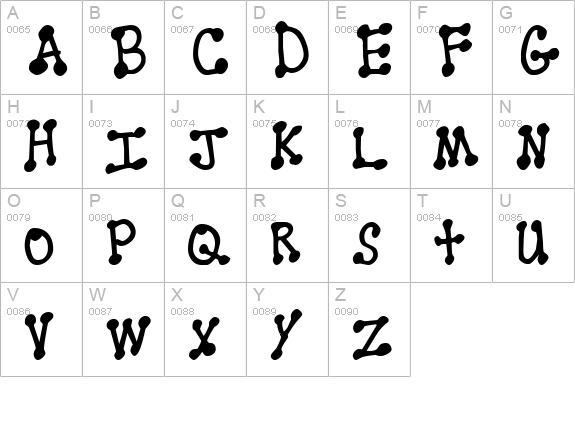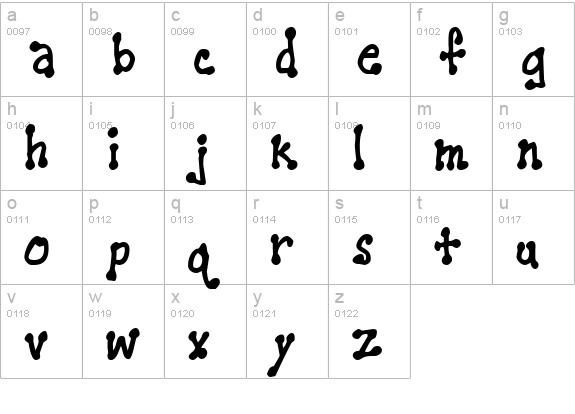
PenStitching Normal Font Details
PenStitching Normal is the standard, neutral variant in the PenStitching typeface family \xE2\x80\x94 well suited to general body text, paragraphs, and standard typographic work.
PenStitching Normal is a beautifully crafted font that combines the elegance of handwriting with the charm of stitched patterns. This font is perfect for adding a unique and personal touch to your designs. With its delicate strokes and intricate details, PenStitching Normal captures the artistry of needlework and brings it to life on the digital canvas. The letters of PenStitching Normal are carefully hand-drawn, giving them a warm and inviting feel. The stitching effect adds a touch of nostalgia and craftsmanship, making this font ideal for projects that require a vintage or handmade look. Whether you're creating invitations, logos, or social media graphics, PenStitching Normal will add a touch of whimsy and creativity to your designs. What makes PenStitching Normal even more appealing is that it is freely available to download at FontsMarket.com. You can easily access this font and incorporate it into your projects without any hassle. Whether you're a professional designer or a hobbyist, this font is a valuable addition to your collection. With PenStitching Normal, you have the freedom to explore your creativity and experiment with different design possibilities. Its versatility allows it to be used in various contexts, from branding and packaging to stationery and apparel. The possibilities are endless with this delightful font. So why wait? Download PenStitching Normal now from FontsMarket.com and unleash your imagination. Let the charm of this font inspire you to create stunning designs that stand out from the crowd. Whether you're adding a personal touch to your creations or capturing the essence of a bygone era, PenStitching Normal is the perfect choice. Get started today and experience the joy of freely expressing your creativity with this remarkable font.